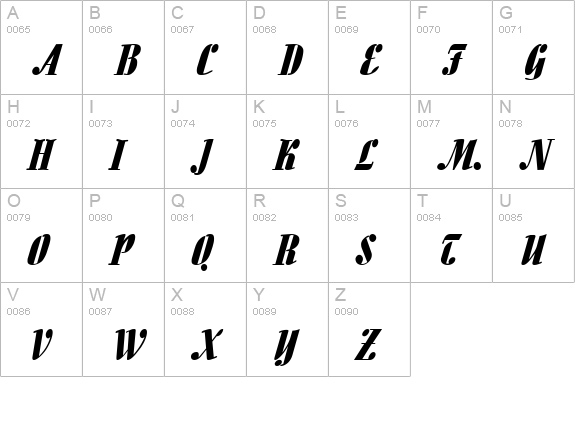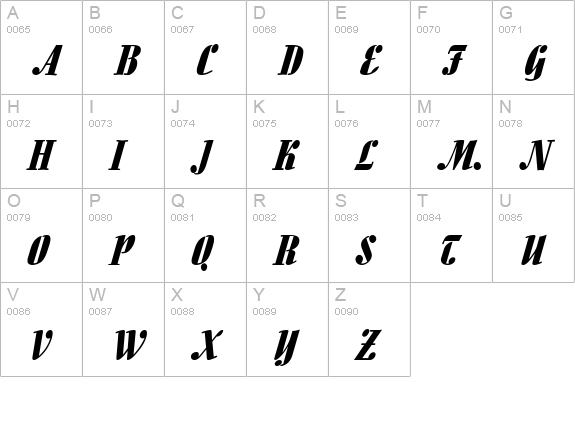
Aloe Italic is a distinctive, italic variant in the Aloe typeface family \xE2\x80\x94 well suited to design and typography projects.
Aloe Italic font exudes elegance and sophistication with its sleek and modern design. The italicized style adds a touch of flair and creativity to any project, making it perfect for headings, logos, and branding materials. The smooth curves and balanced letterforms of Aloe Italic create a harmonious flow that is both visually appealing and easy to read. Best of all, Aloe Italic is available for free download at FontsMarket.com. This high-quality font is a valuable addition to any designer's toolkit, offering versatility and style without breaking the bank. Whether you're working on a website, poster, or print design, Aloe Italic is sure to elevate your work with its timeless and sophisticated look. Download it today and see the difference it can make in your projects.